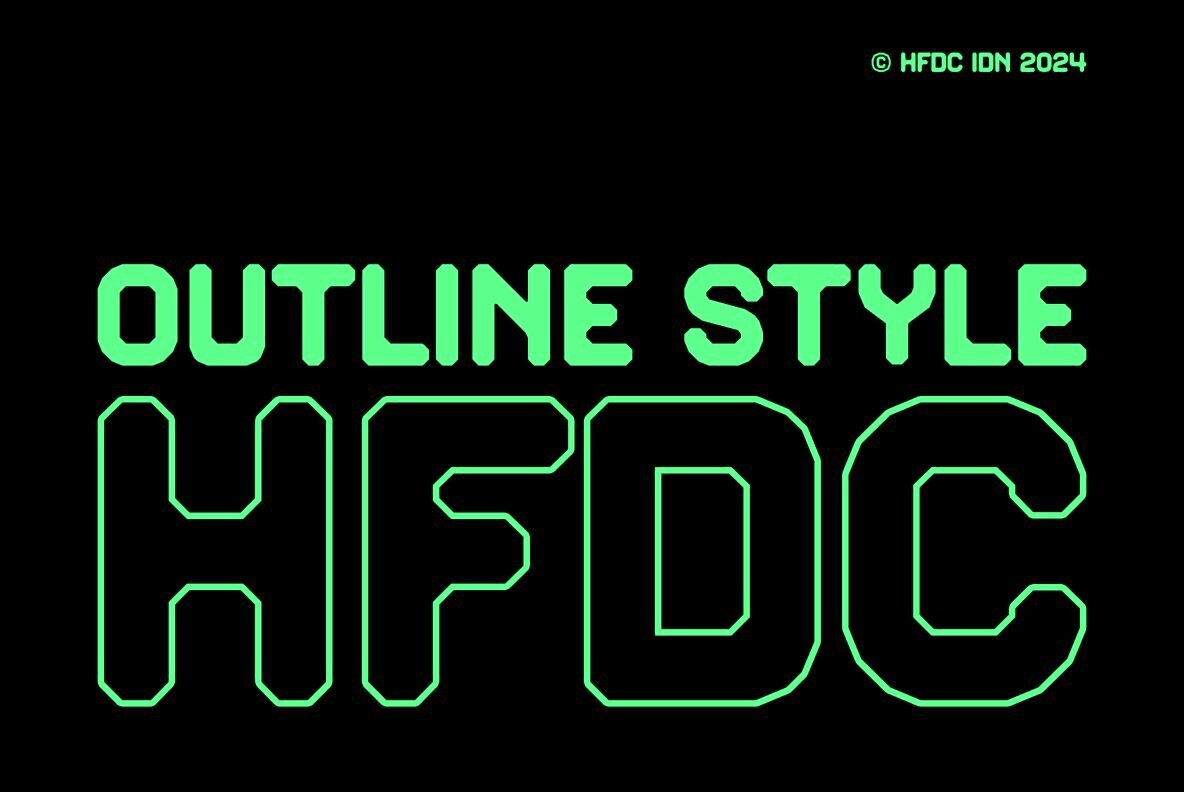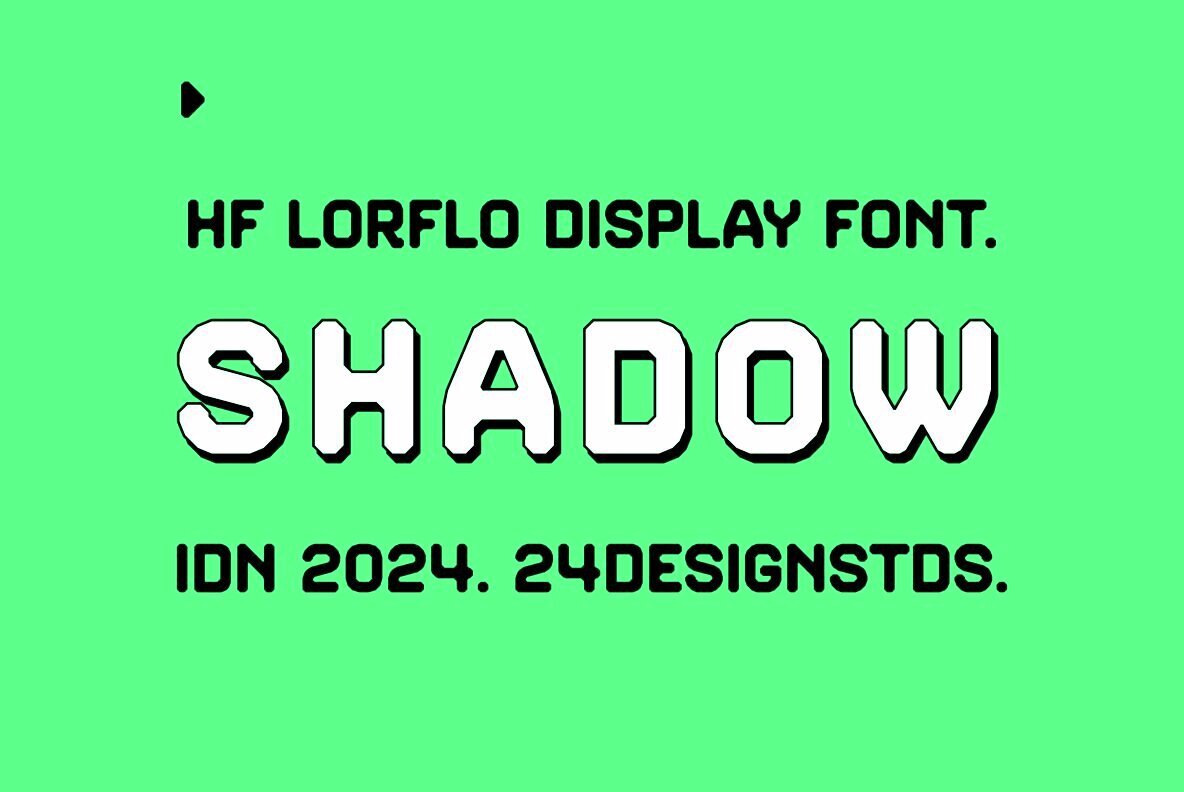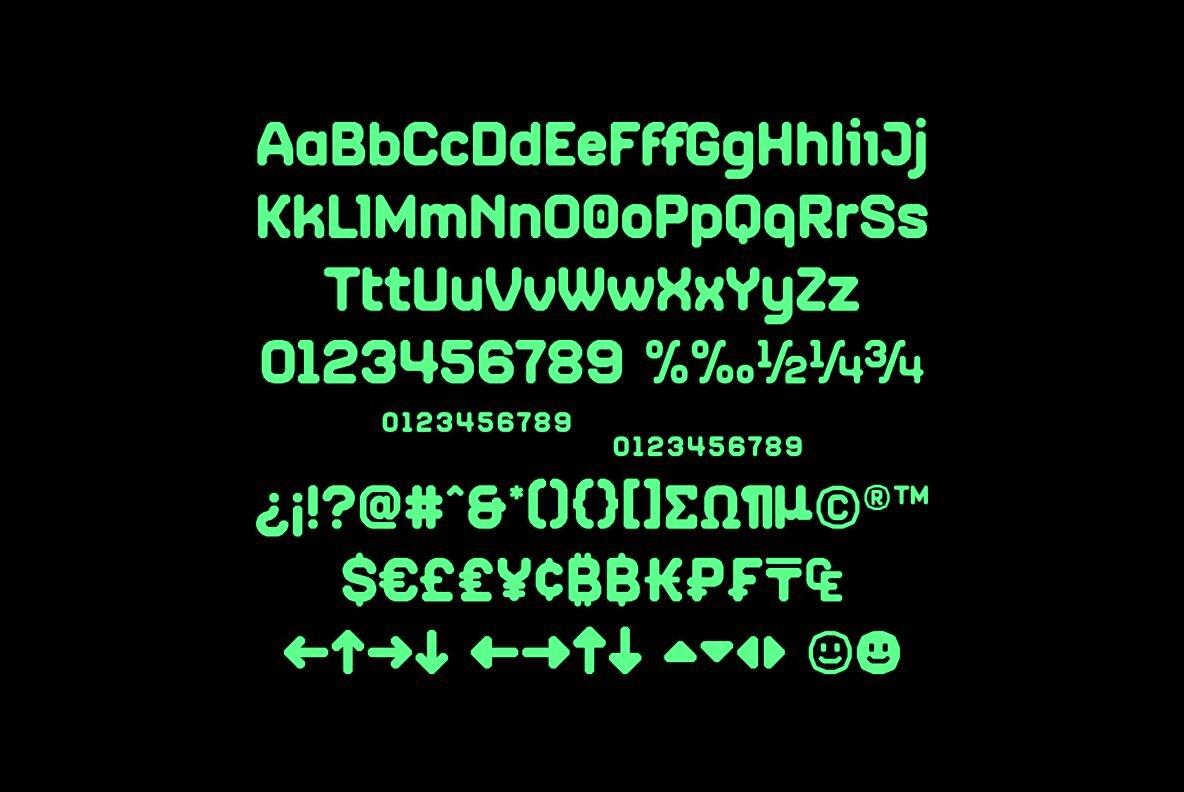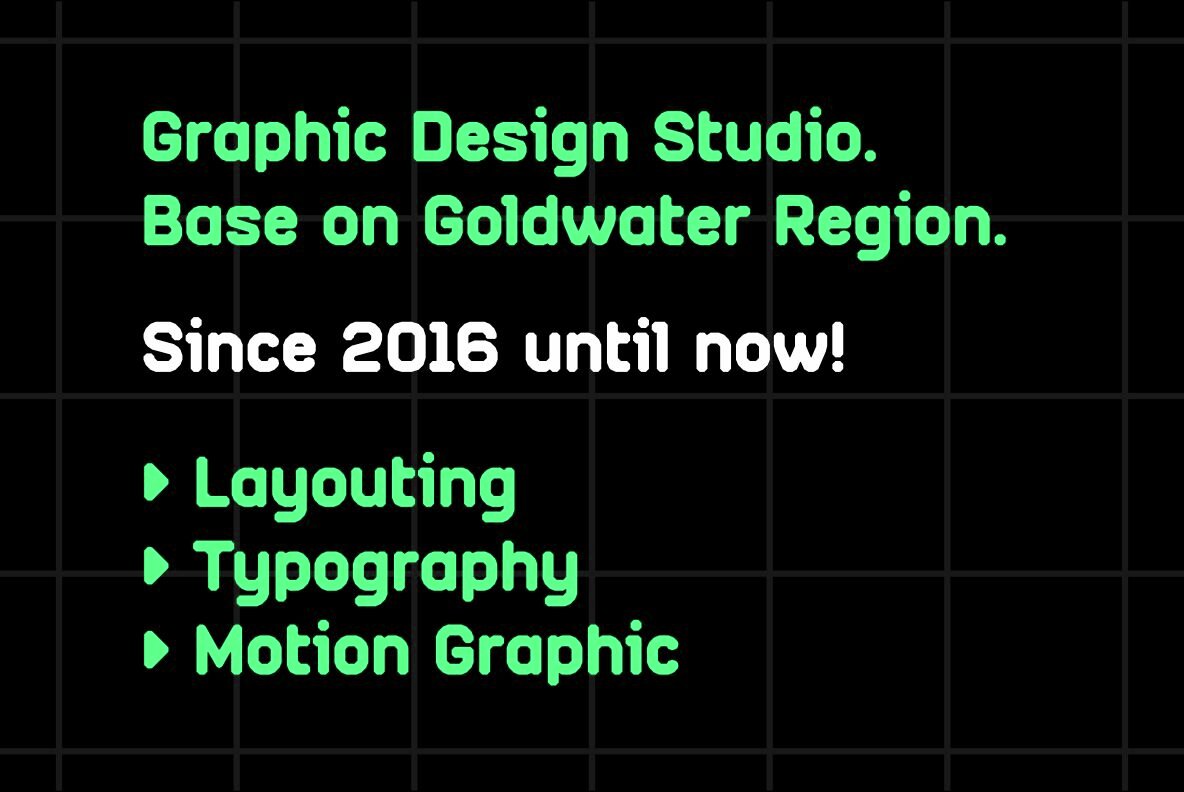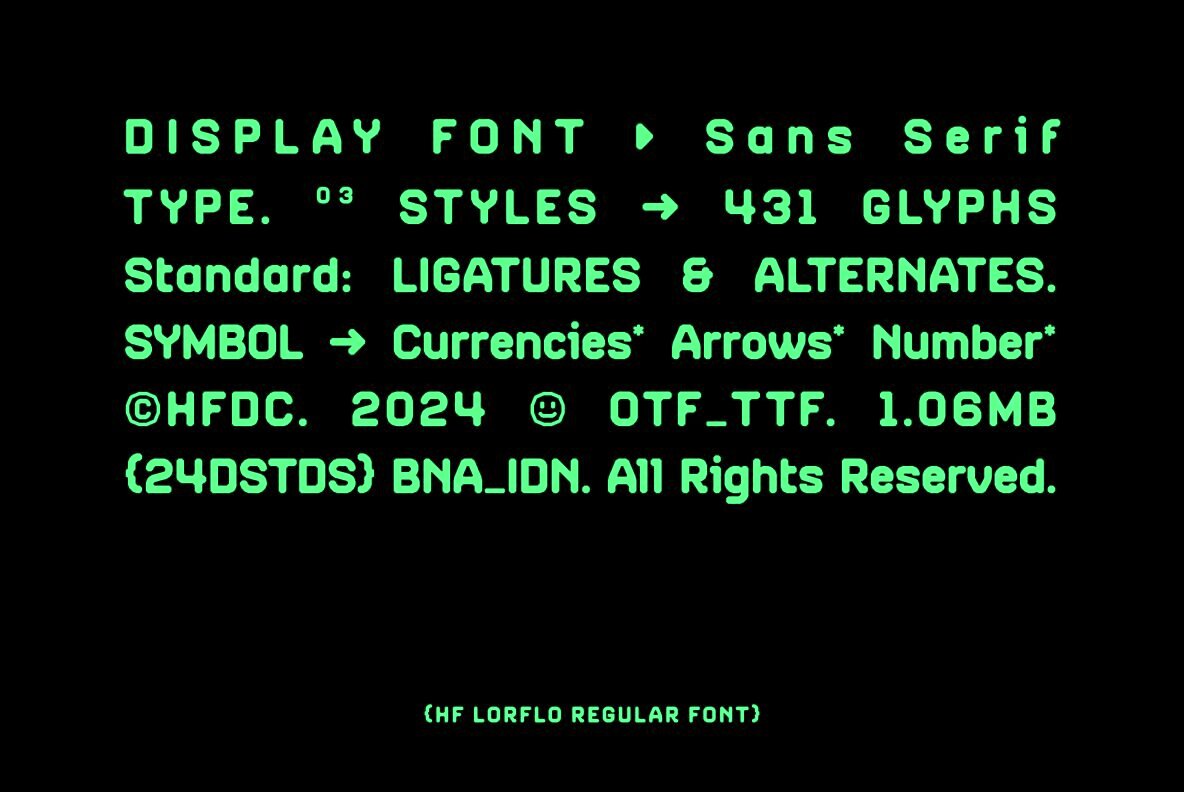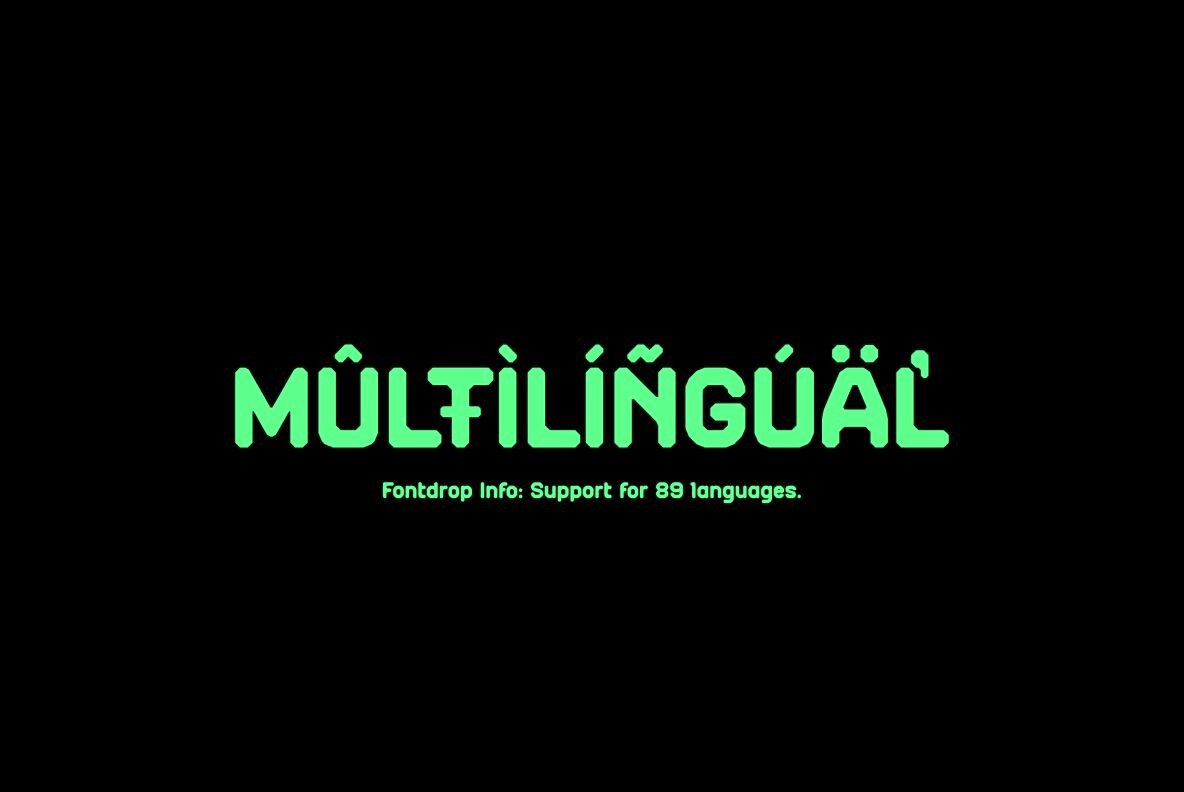
HF Lorflo 1
This bold, modern sans-serif stencil font features clean, geometric lines and rounded edges, making it a dynamic choice for contemporary design projects. Its strong legibility and distinctive appearance make it ideal for headlines, branding, posters, and logos, as well as advertisements, packaging, and editorial work.